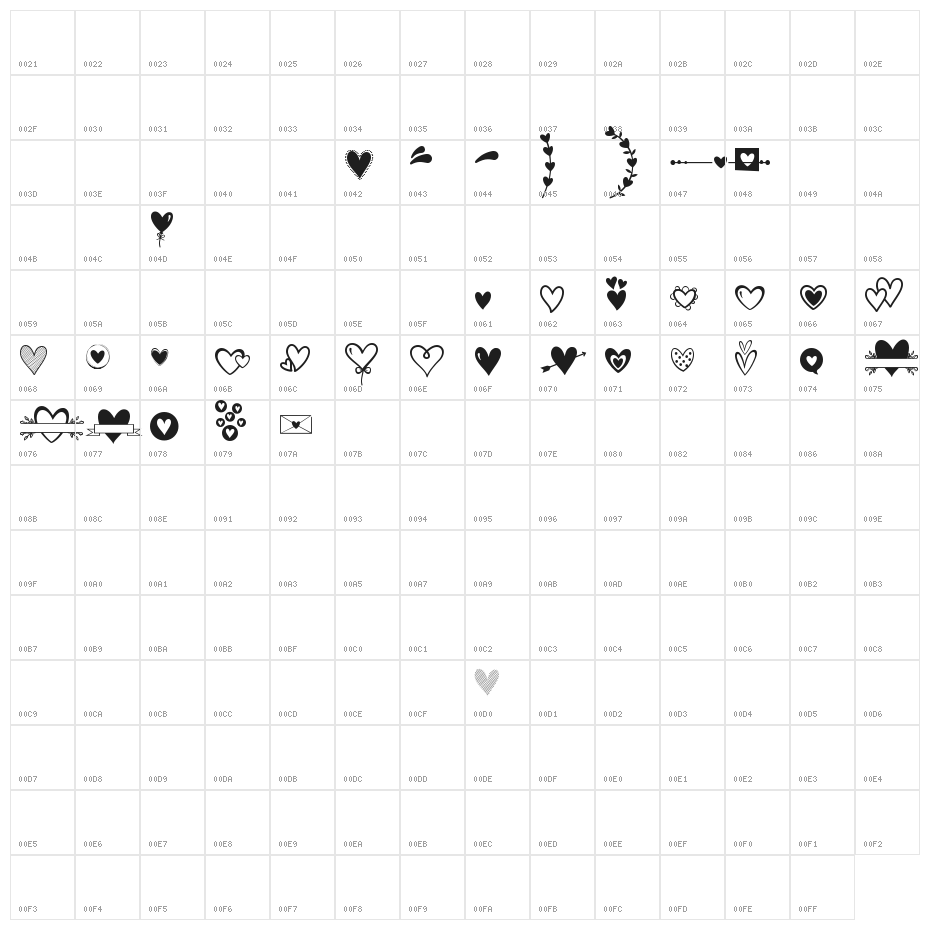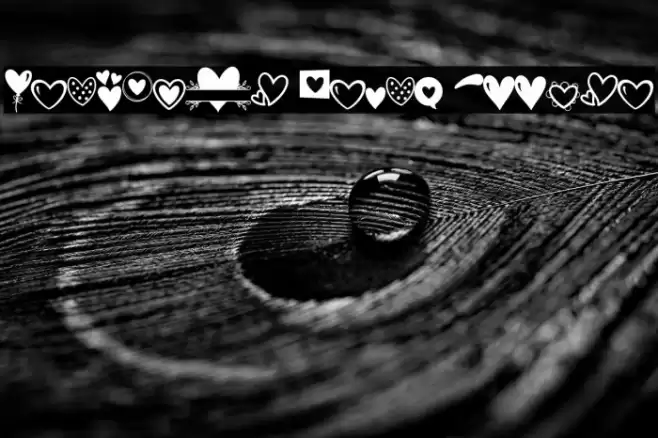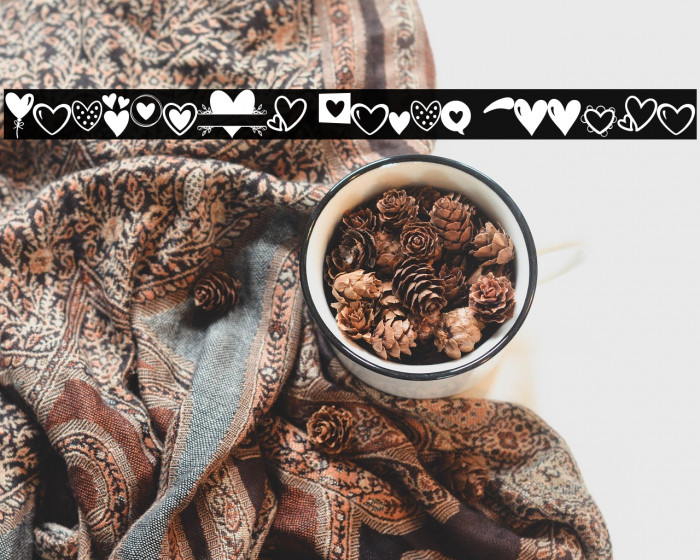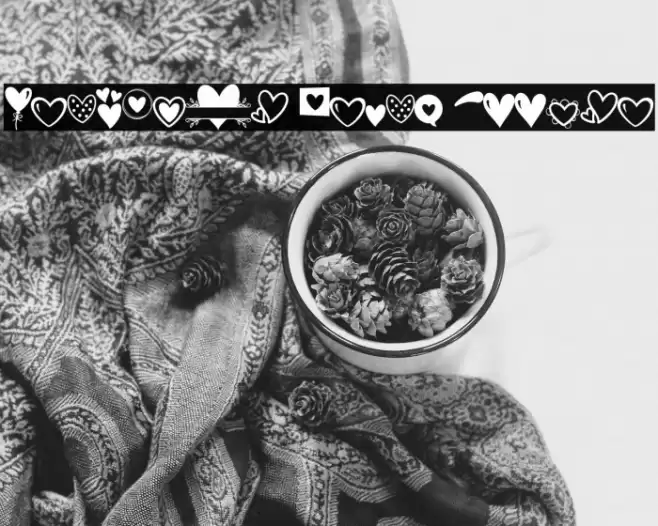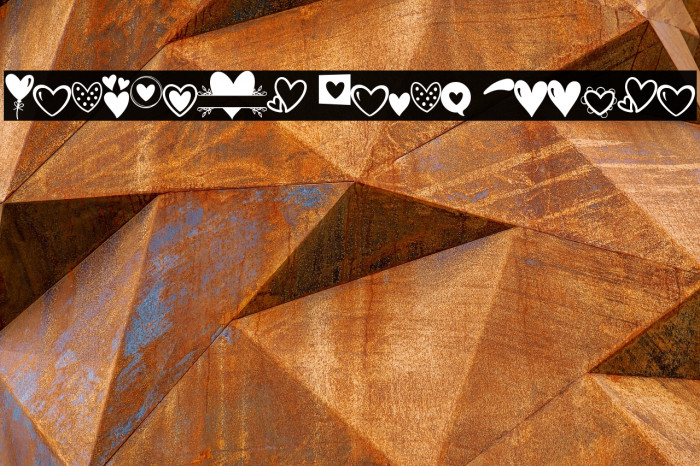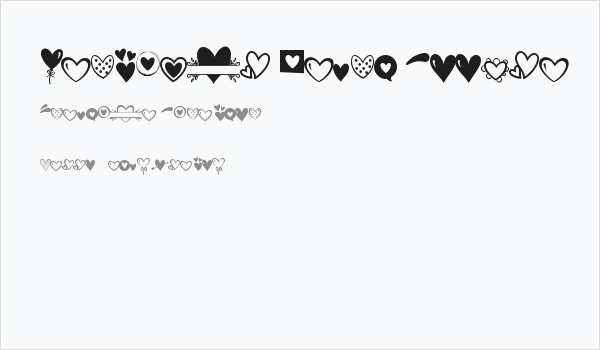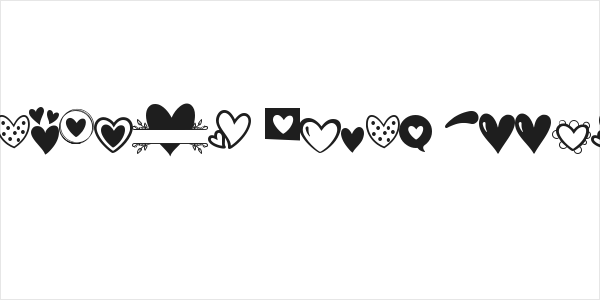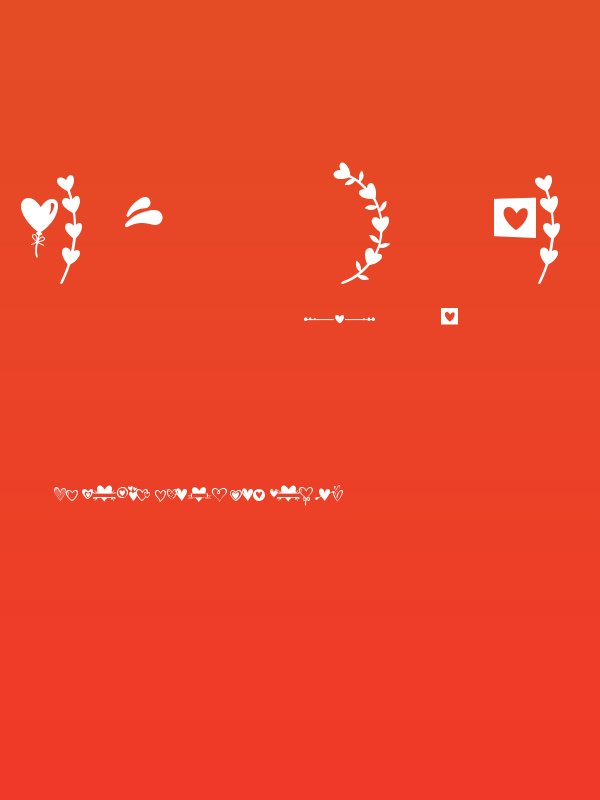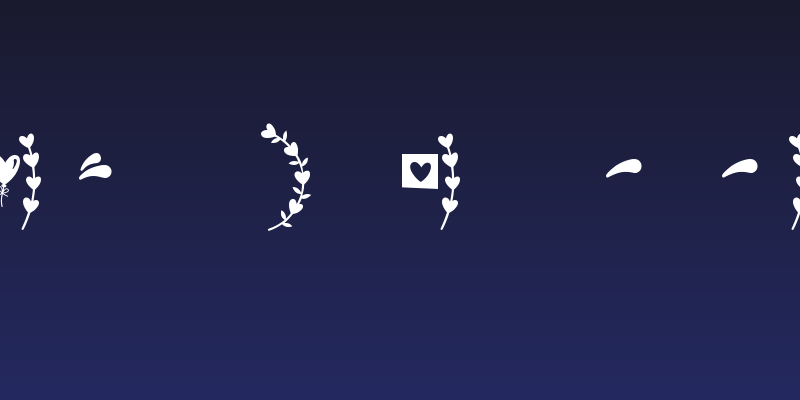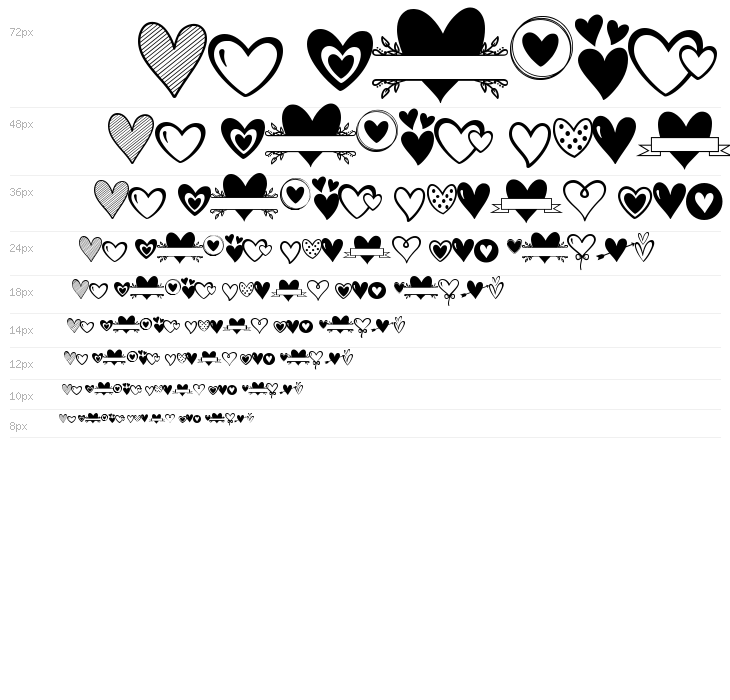
Merciful Heart Doodle Font
Merciful Heart Doodle Description
This decorative collection features a variety of heart-themed doodles, each with unique embellishments and styles. The designs range from simple outlines to intricate patterns, incorporating elements like arrows, ribbons, and floral motifs. The hearts vary in size and shape, offering a playful and whimsical aesthetic. These elements are perfect for adding a touch of romance and creativity to any project, with their bold lines and charming details. The overall style is fun and light-hearted, making it suitable for a wide range of applications.